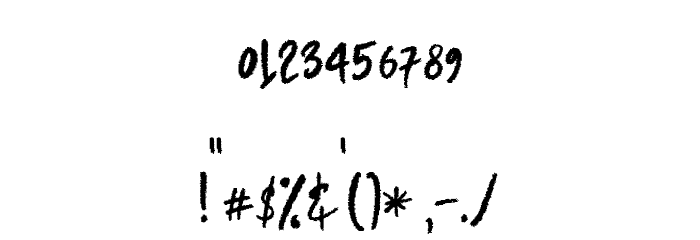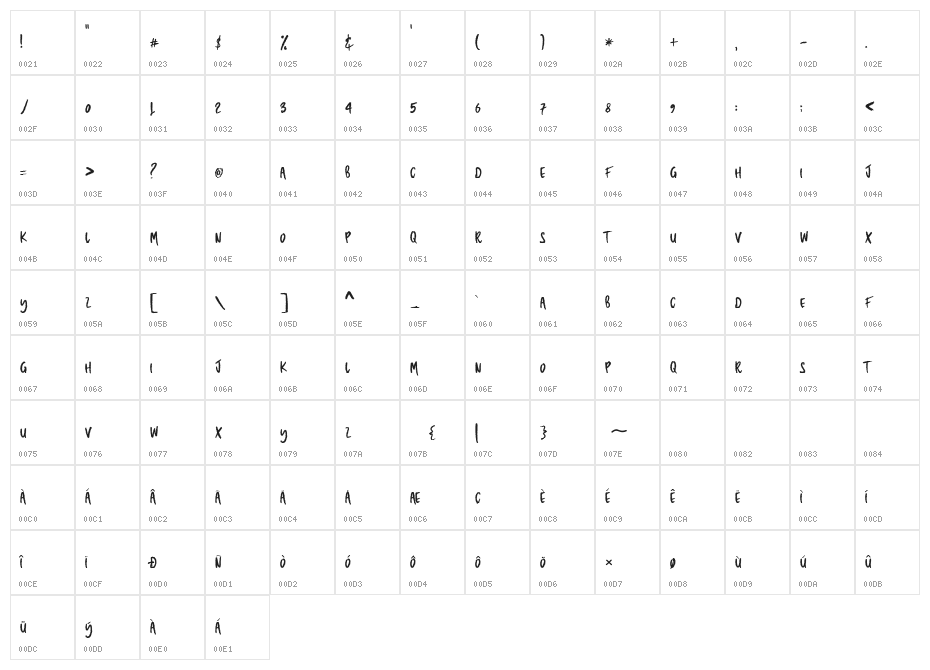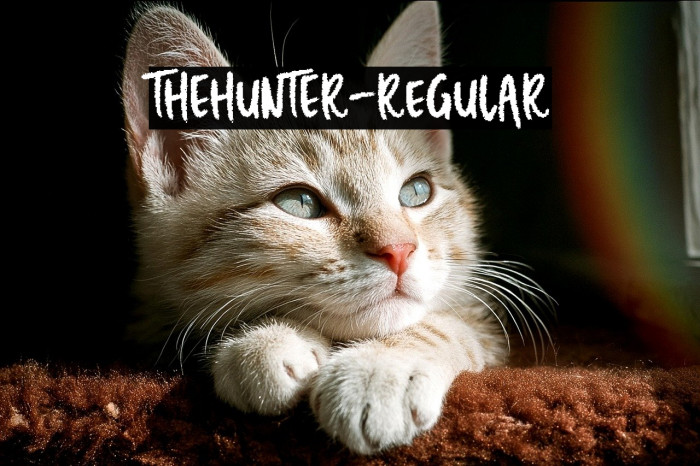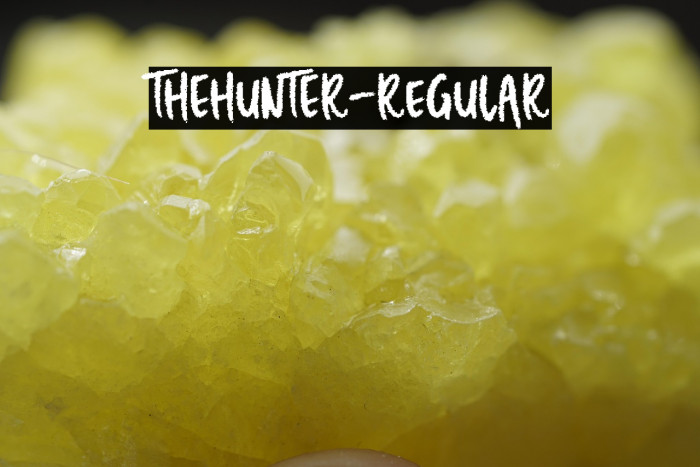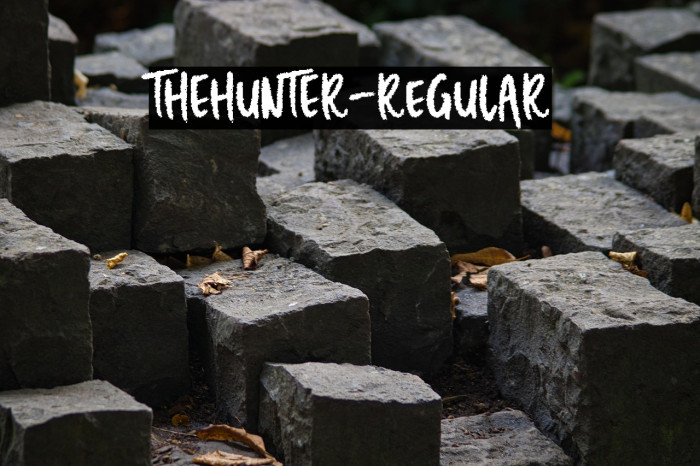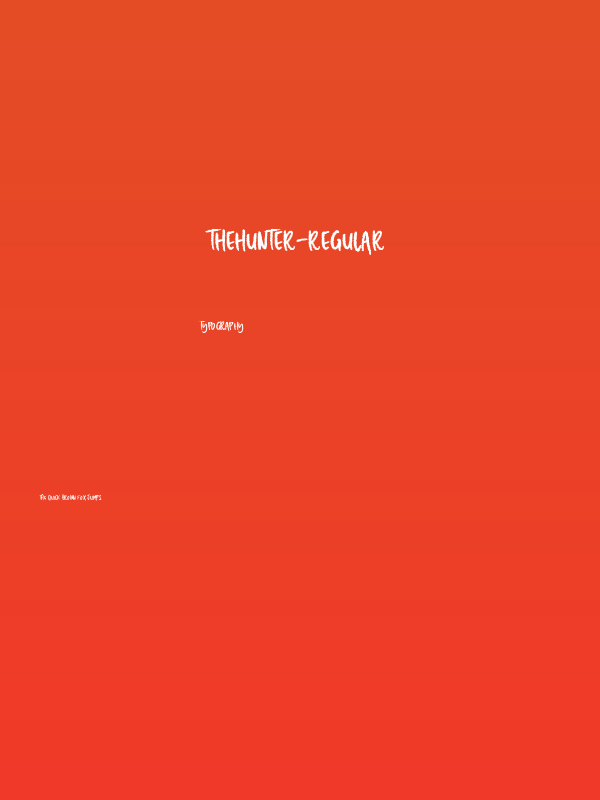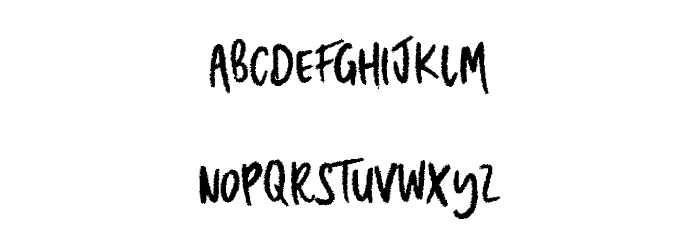
THEHUNTER-Regular Font
THEHUNTER-Regular Description
This font features a bold, handwritten style with a casual and organic appearance. The letters are slightly irregular, adding a personal and authentic touch. The strokes are thick and consistent, giving the font a strong presence. Each character maintains a playful yet legible form, making it suitable for informal and creative projects. The numbers and special characters follow the same handwritten aesthetic, ensuring a cohesive look across all text elements. This font is versatile, offering a unique charm that can enhance various design contexts.
| Proposed Projects | Ideal for greeting cards, posters, social media graphics, and branding projects that require a personal touch. |